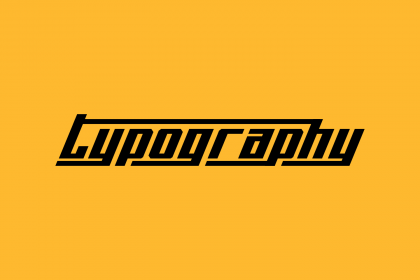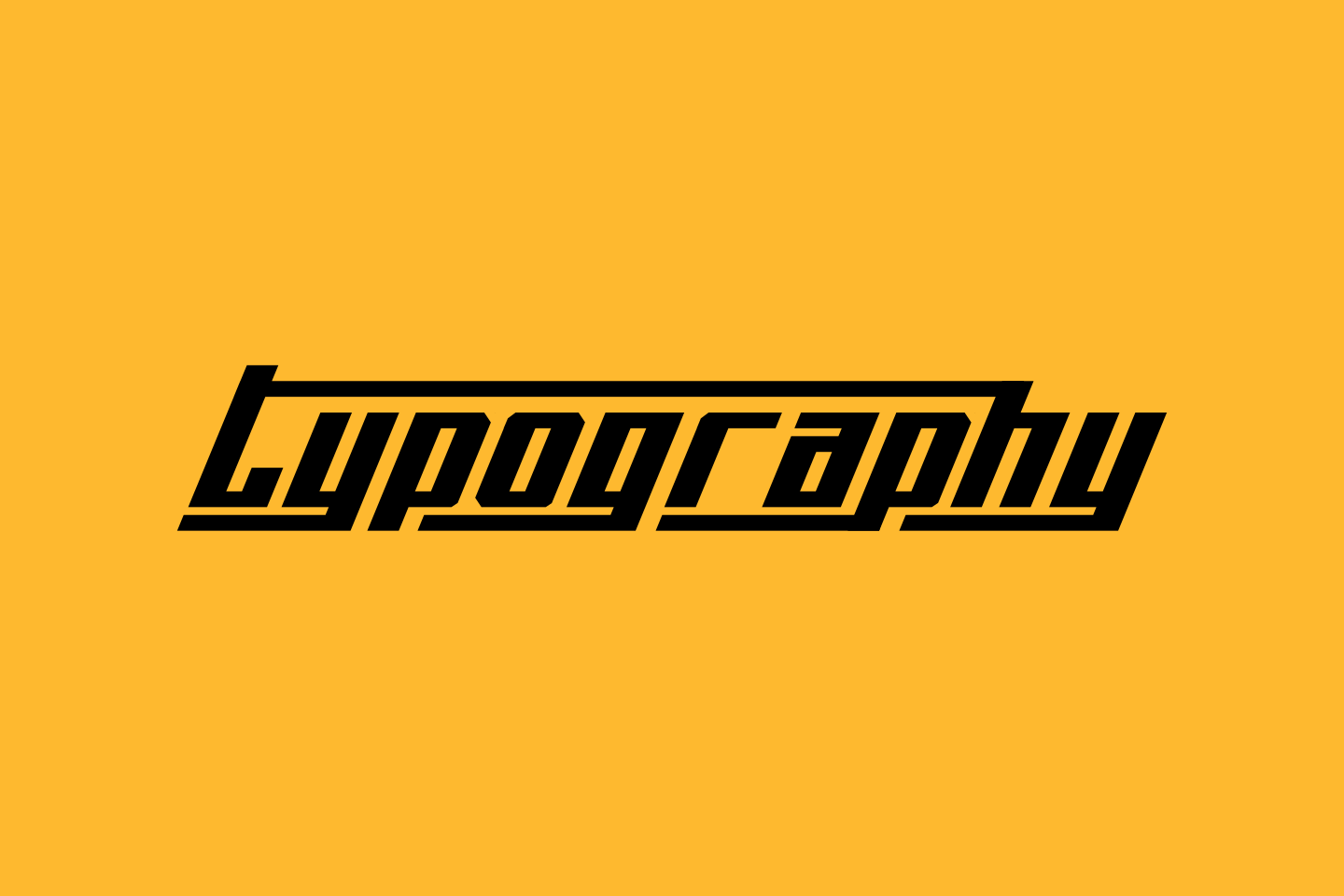
Thunderbold Typeface
Thunderbold is a powerful font suitable for poster,banner,flyer,race number,logo,logotype and more.Thunderbold have a lot of Alternate too.Be bold like Thunder !